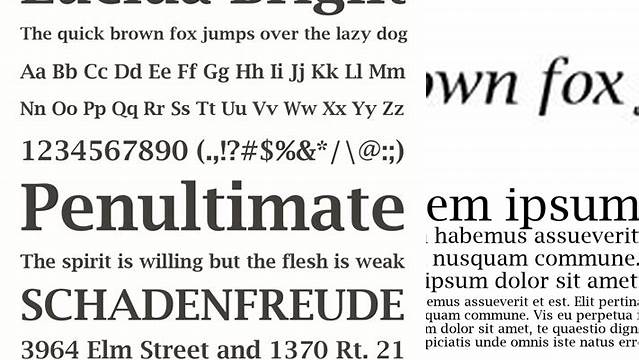
Are you looking for a sophisticated and highly readable font for your next project? Look no further! In this comprehensive guide, we'll dive deep into the world of Lucida Bright, a font known for its elegance and clarity. We'll explore its history, design characteristics, common uses, and most importantly, how you can download Lucida Bright font for free. So, buckle up, font enthusiasts, and let's get started!
What is Lucida Bright Font?
When discussing the Lucida Bright font, it's essential to understand its origins and unique features. Lucida Bright is a typeface designed by Charles Bigelow and Kris Holmes, commissioned by Microsoft. It was released as part of the Windows operating system, making it a widely accessible font for many users. Its design philosophy revolves around creating a highly legible font, suitable for both screen and print. The Lucida Bright font family is characterized by its clean lines, balanced proportions, and a subtle elegance that makes it a versatile choice for a variety of applications. This typeface belongs to the serif family, meaning it has small decorative strokes, or serifs, at the end of each character stroke. These serifs contribute to its readability, particularly in large blocks of text, by guiding the reader's eye along the line.
The creation of Lucida Bright was driven by the need for a font that performs exceptionally well in digital environments. In the early days of personal computing, screen resolution was significantly lower than it is today, making it challenging to display fonts clearly. Lucida Bright was designed with this limitation in mind, employing features like a relatively large x-height (the height of lowercase letters) and open counters (the enclosed spaces within letters) to enhance legibility on screens. The font's design also considered the requirements of printing, ensuring that it would produce crisp and clear results on paper. This dual focus on screen and print performance makes Lucida Bright a reliable choice for various design projects, from digital documents to printed publications.
The Lucida Bright typeface has a classic and timeless appeal, making it suitable for a wide range of applications. Its clean lines and balanced proportions lend it an air of sophistication, making it a popular choice for formal documents, such as letters, reports, and academic papers. The font's excellent readability also makes it a great option for body text in books, magazines, and other publications. Beyond its use in print, Lucida Bright is also well-suited for digital media, including websites, e-books, and presentations. Its clarity on screen ensures that the text remains legible even at smaller sizes, making it a versatile choice for user interfaces and other digital applications. The versatility of Lucida Bright stems from its careful design and its ability to perform well in various contexts.
Key Characteristics of Lucida Bright
Let's delve deeper into the key characteristics that make Lucida Bright stand out. When you examine Lucida Bright, you'll notice several distinct features that contribute to its overall aesthetic and readability. One of the most notable aspects is its clean and crisp design. The strokes are well-defined, and the serifs are subtle and refined, giving the font a polished and professional appearance. The letterforms are also carefully balanced, with proportions that are pleasing to the eye. This attention to detail contributes to the font's overall elegance and makes it a versatile choice for various design projects. Another important characteristic of Lucida Bright is its high level of legibility. This is achieved through several design elements, including a relatively large x-height, which makes lowercase letters appear more prominent, and open counters, which prevent the letters from appearing crowded or cluttered. The font's spacing is also carefully considered, ensuring that the letters are neither too close together nor too far apart. These features combine to create a font that is easy to read, even at small sizes or on screens with lower resolution. The high legibility of Lucida Bright makes it an excellent choice for body text in books, articles, and other long-form documents.
Another notable aspect of Lucida Bright is its versatility. The font is well-suited for a wide range of applications, from formal documents to creative projects. Its clean and elegant design makes it a popular choice for business correspondence, academic papers, and legal documents. At the same time, its readability and clarity make it a great option for body text in books, magazines, and websites. Lucida Bright also works well in headlines and titles, adding a touch of sophistication to any design. This versatility is one of the key reasons why Lucida Bright has remained a popular font choice for many years. The font's versatility stems from its ability to strike a balance between elegance and practicality, making it suitable for various design needs.
Lucida Bright also boasts a comprehensive character set, which includes a wide range of letters, numbers, punctuation marks, and symbols. This extensive character set makes the font suitable for use in multiple languages and for projects that require special characters or symbols. The font also includes different weights and styles, such as bold, italic, and bold italic, providing designers with even more flexibility and control over their typography. The variety of weights and styles allows designers to create visual hierarchy and emphasis within their designs, while the comprehensive character set ensures that the font can be used in a wide range of contexts. The complete character set of Lucida Bright adds to its versatility and makes it a valuable asset for any designer.
Common Uses of Lucida Bright Font
Where can you use Lucida Bright? The applications are vast! Given its legibility and classic aesthetic, Lucida Bright is a workhorse in various design contexts. In the realm of print media, Lucida Bright shines as a reliable choice for body text in books, magazines, and newspapers. Its clear letterforms and balanced proportions make it easy on the eyes, ensuring a comfortable reading experience for the audience. Many publishers and designers prefer Lucida Bright for its ability to maintain readability even in long-form content. The font's subtle elegance also adds a touch of sophistication to printed materials, making it suitable for formal publications and documents. The use of Lucida Bright in print media highlights its strength as a versatile and reliable typeface.
Switching gears to the digital world, Lucida Bright continues to excel. Its design was specifically optimized for screen readability, making it a popular choice for websites, e-books, and other digital content. The font's clear and crisp appearance ensures that text remains legible even at smaller sizes or on screens with varying resolutions. This is particularly important for websites, where users may be viewing content on a variety of devices, from large desktop monitors to small mobile screens. Lucida Bright's digital-friendly design makes it a valuable asset for web designers and content creators. The font's clarity on screen also makes it a good choice for user interfaces, ensuring that text is easy to read and understand.
Beyond print and digital media, Lucida Bright finds applications in other areas as well. Its clean and professional appearance makes it a suitable choice for business correspondence, such as letters, memos, and reports. The font's clarity and legibility ensure that messages are conveyed effectively, while its subtle elegance adds a touch of sophistication to business communications. In the academic world, Lucida Bright is often used for research papers, dissertations, and other scholarly documents. Its readability and formal aesthetic make it a good fit for academic writing. The versatility of Lucida Bright extends to various professional settings, where its clean and professional appearance helps to create a polished and credible image.
Ultimately, the choice of font depends on the specific needs of your project. Whether you opt for Lucida Bright or one of its alternatives, prioritizing readability and visual appeal will lead to effective communication and design. The key takeaway is to make informed decisions about font selection, considering factors such as legibility, licensing, and overall aesthetic. With its enduring qualities and wide-ranging applications, Lucida Bright remains a valuable asset for designers and content creators alike.